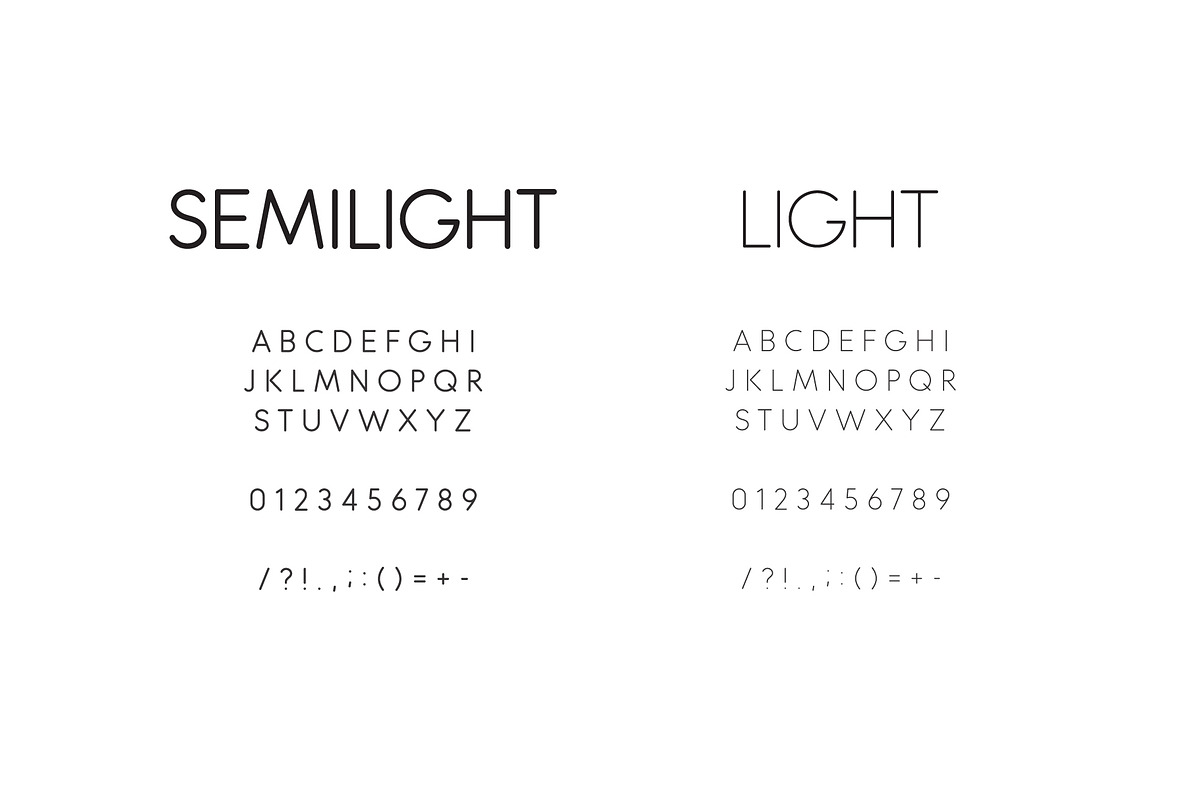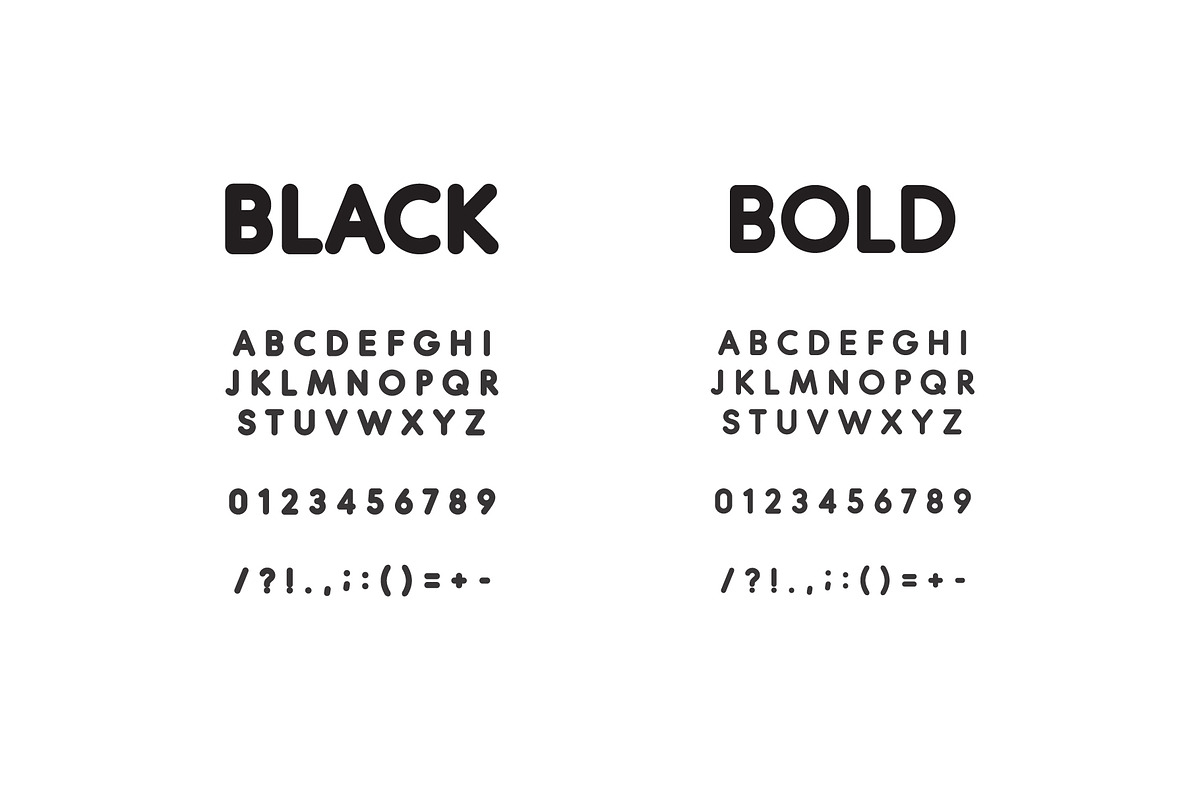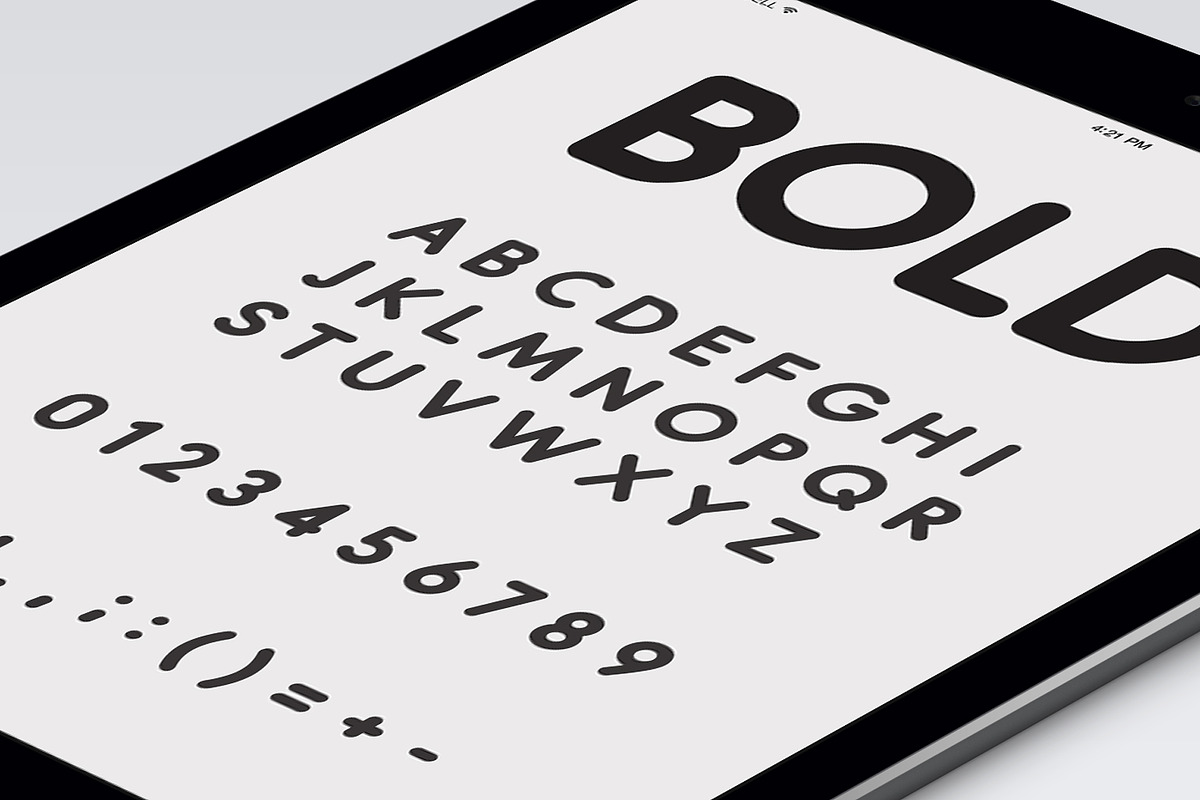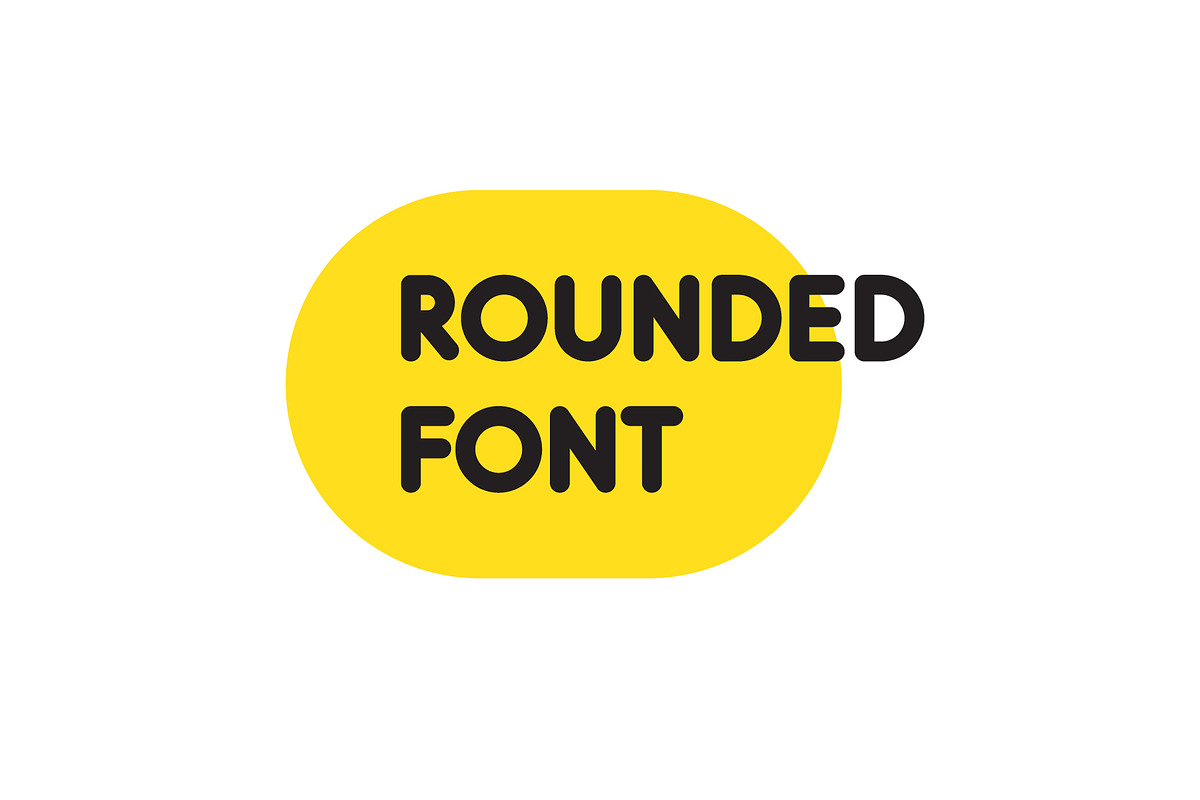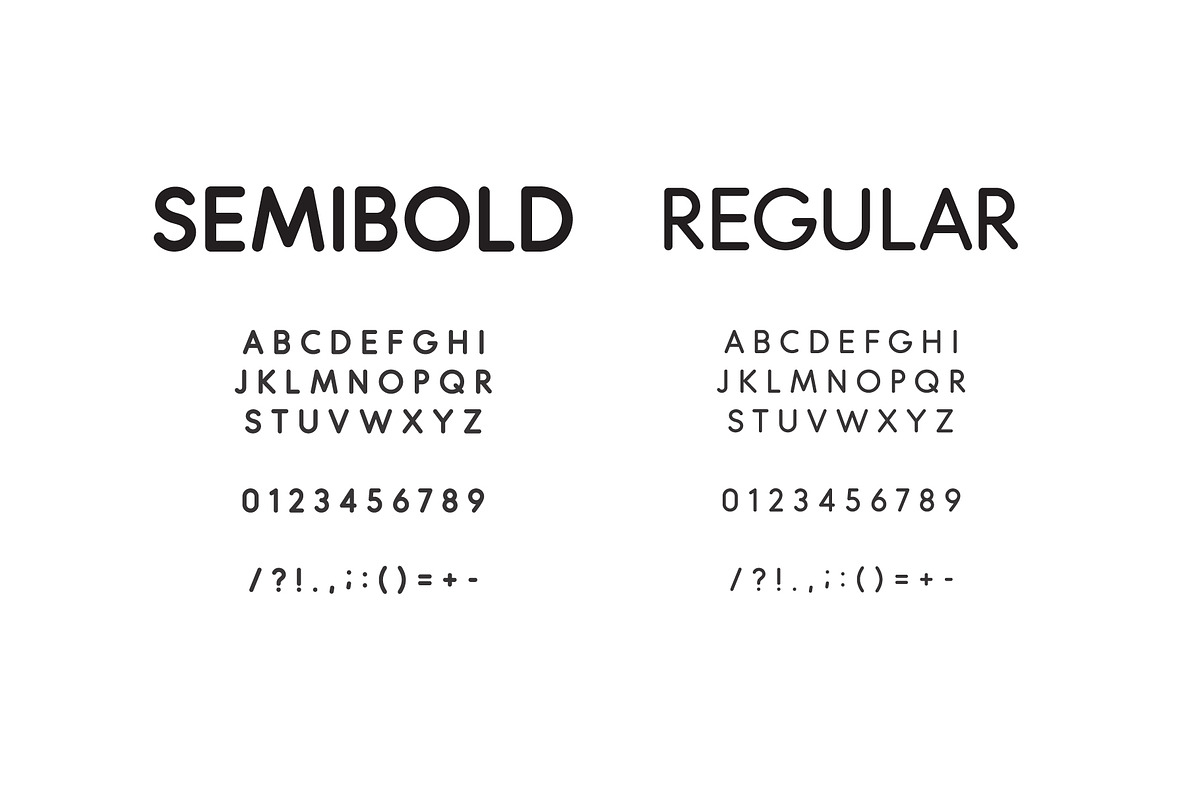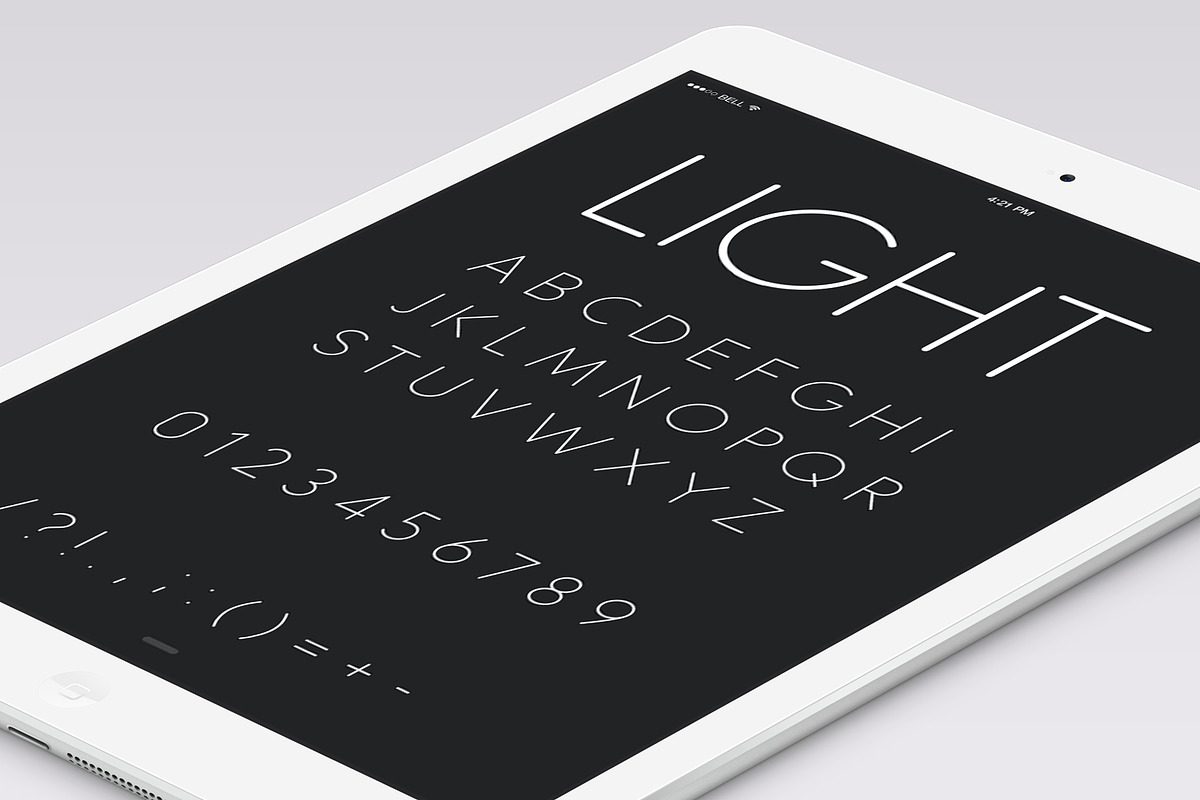
Rounded Font
Proud to present you a font that proved to be unsurpassed – "Rounded"
The most fashionable ideas of the visual aesthetics of the font were used to create this font! I have no doubt this font will be useful for you.
Why Rounded Font is worth a look
Rounded Font by artyway fits naturally into Branding, posters, packaging, typography.